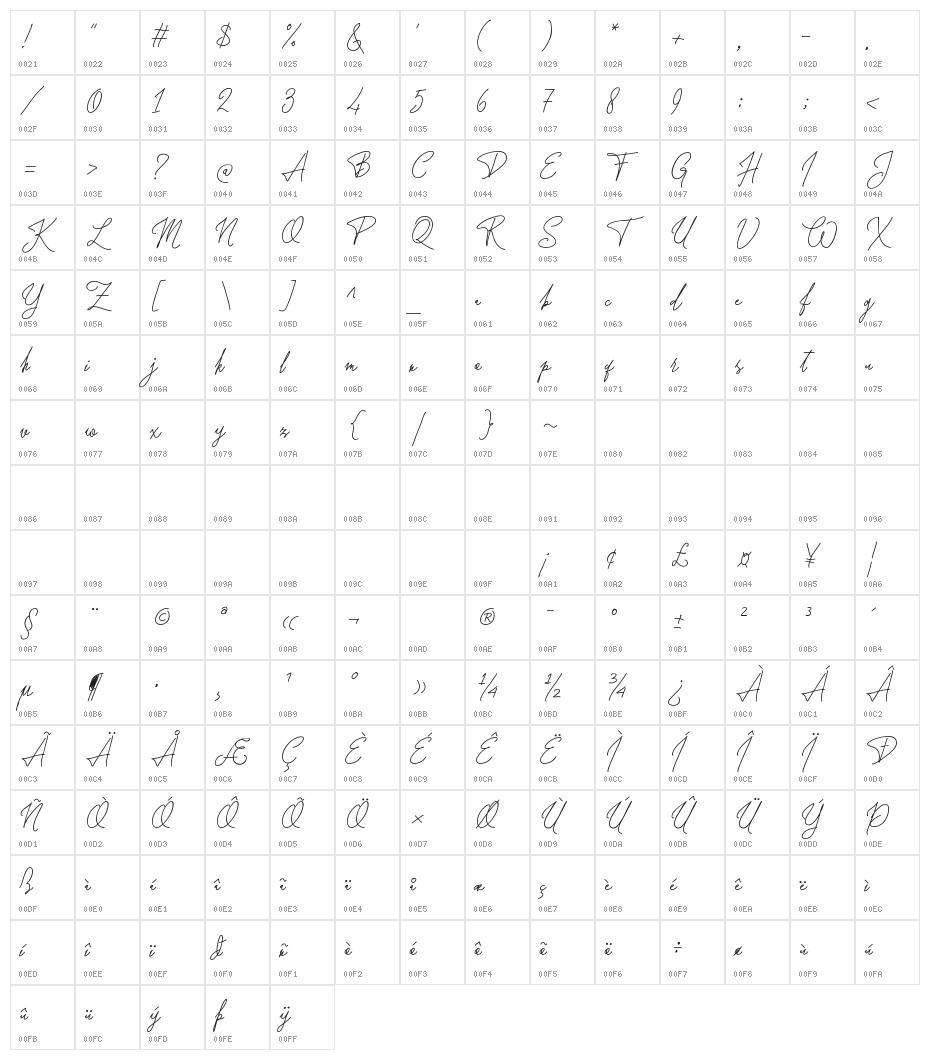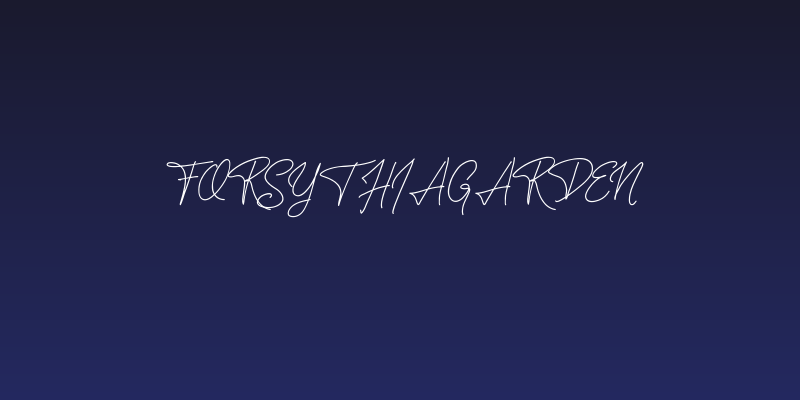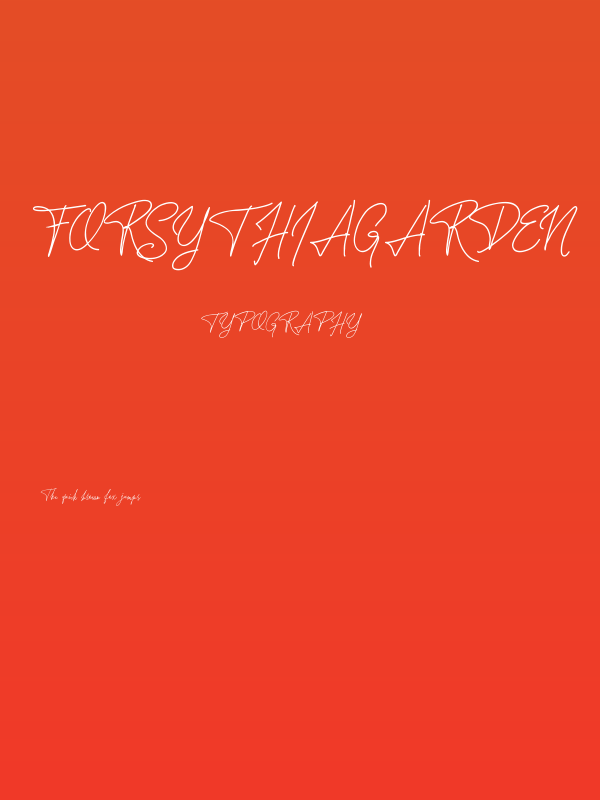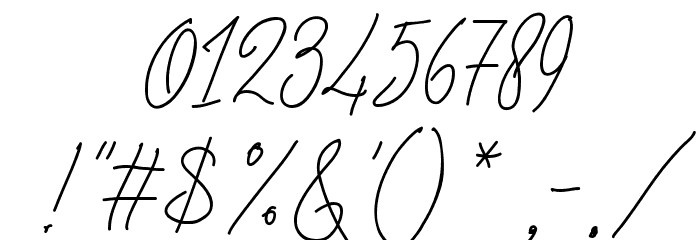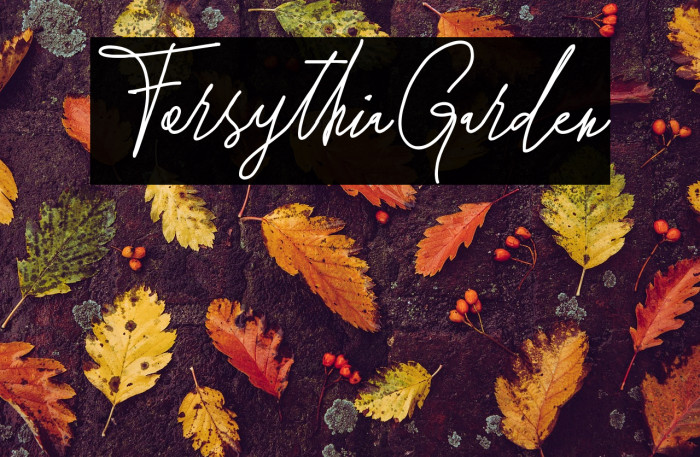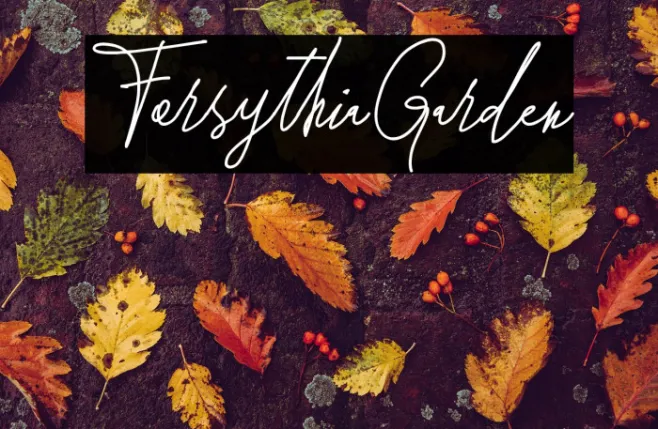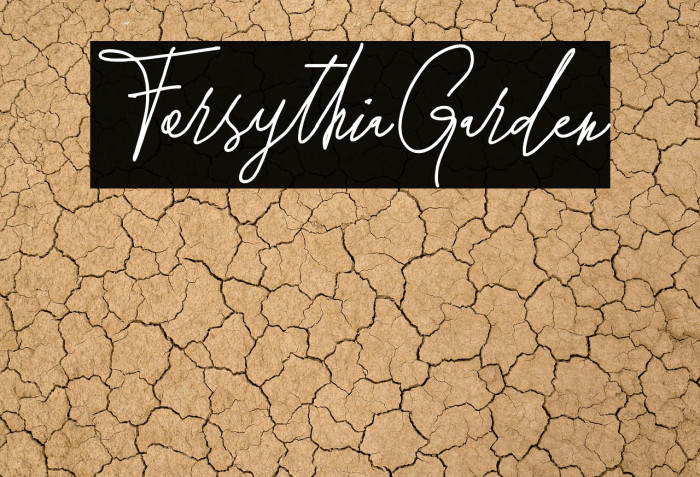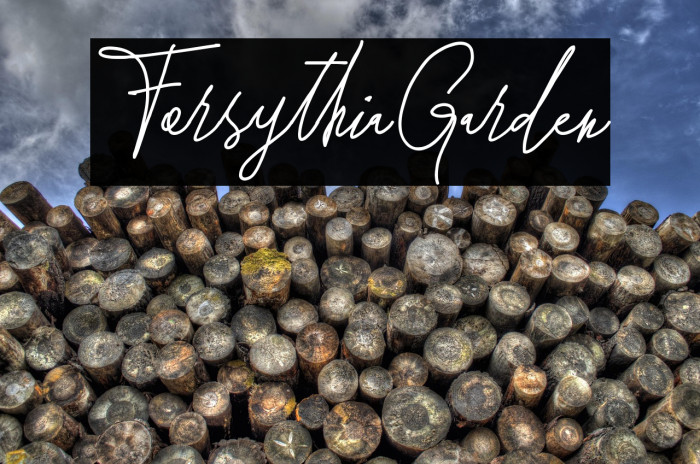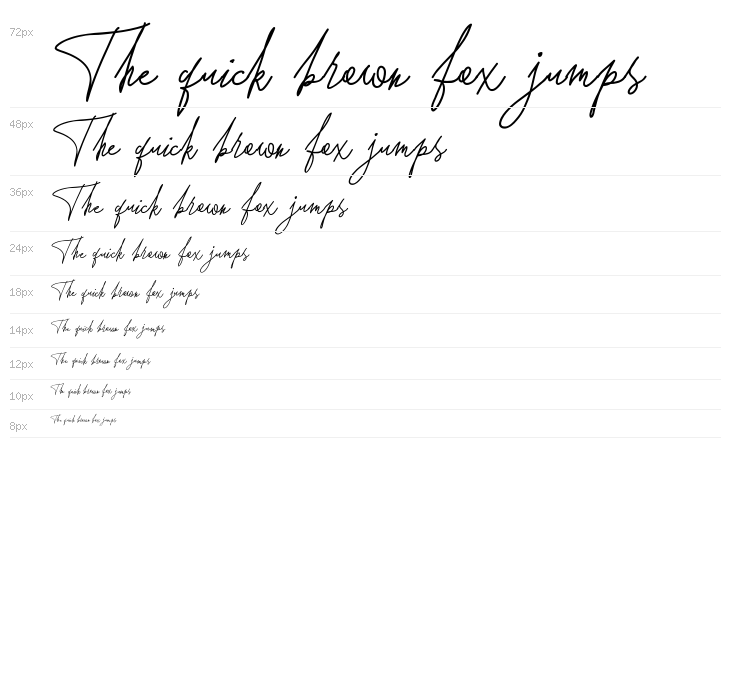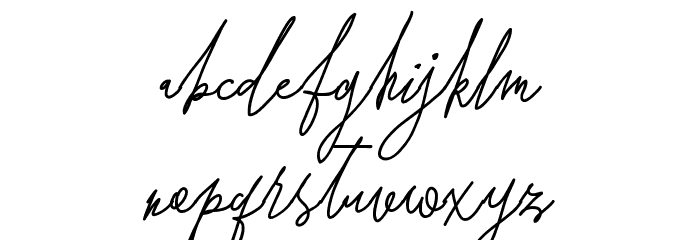
ForsythiaGarden Font
ForsythiaGarden Description
This font exudes a sense of elegance and fluidity, characterized by its cursive, handwritten style. The letters are interconnected with smooth, flowing strokes, giving it a natural and organic appearance. The uppercase letters are slightly more ornate, with extended loops and swirls, while the lowercase letters maintain a consistent, graceful flow. The numerals are distinct yet harmonious with the overall script style, and the special characters are seamlessly integrated, maintaining the font's cohesive aesthetic. This font is ideal for projects that require a personal touch, such as invitations, greeting cards, or branding materials that aim to convey sophistication and warmth.
| Proposed Projects | Ideal for wedding invitations, greeting cards, personal branding, and elegant logo designs. |